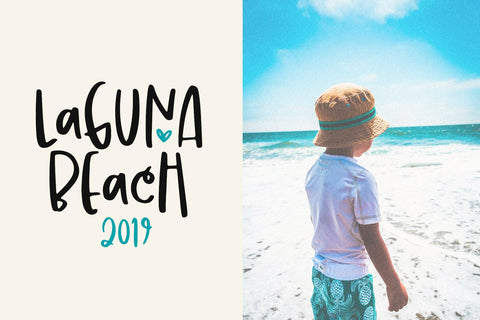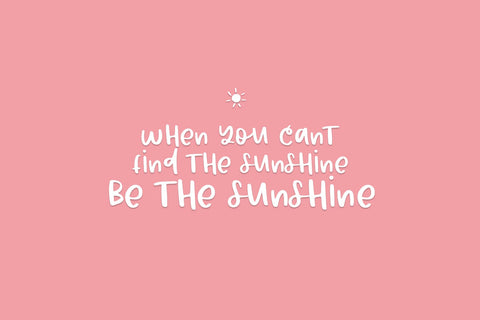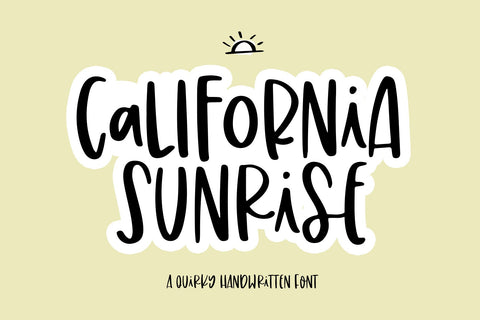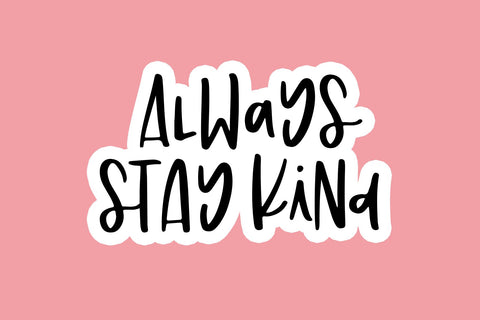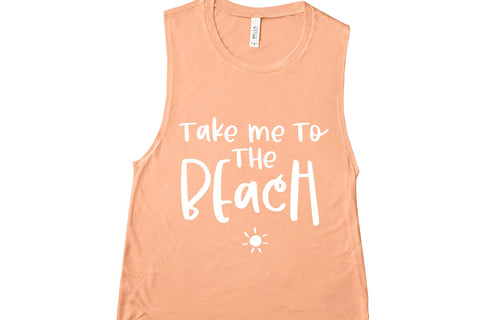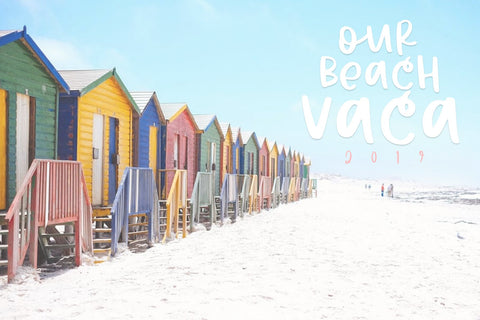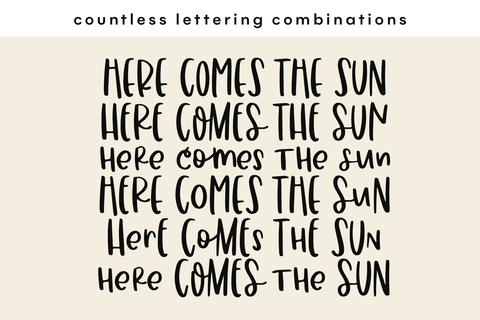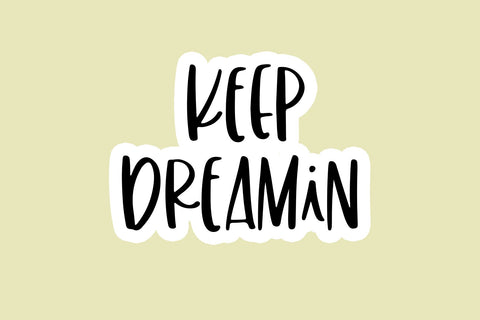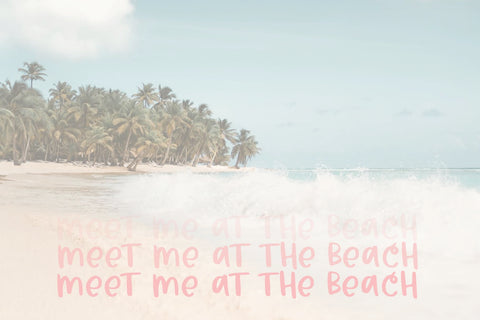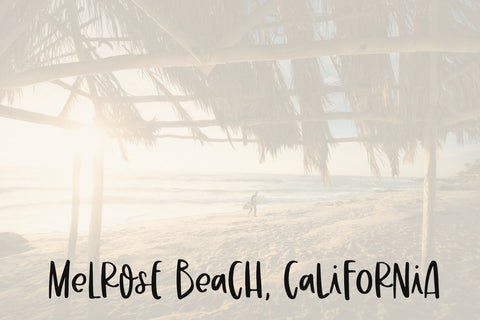
California Sunrise - Quirky Handwritten Font
Calfornia Sunrise is a super cute handwritten font with big, quirky letters.
There are a ton of alternative letters so that you can make unique designs!
The capital/lettercase letters are all different but they are all caps.
Use the alternative letters that are built into the font to create fun and quirky matchups!
If you are unable to access alternatives - incorporate "Cali Littles" into your type!
This font is perfect for quotes, headings, blogs, svg designs, logos, invitations and more!
This font includes most accent characters.